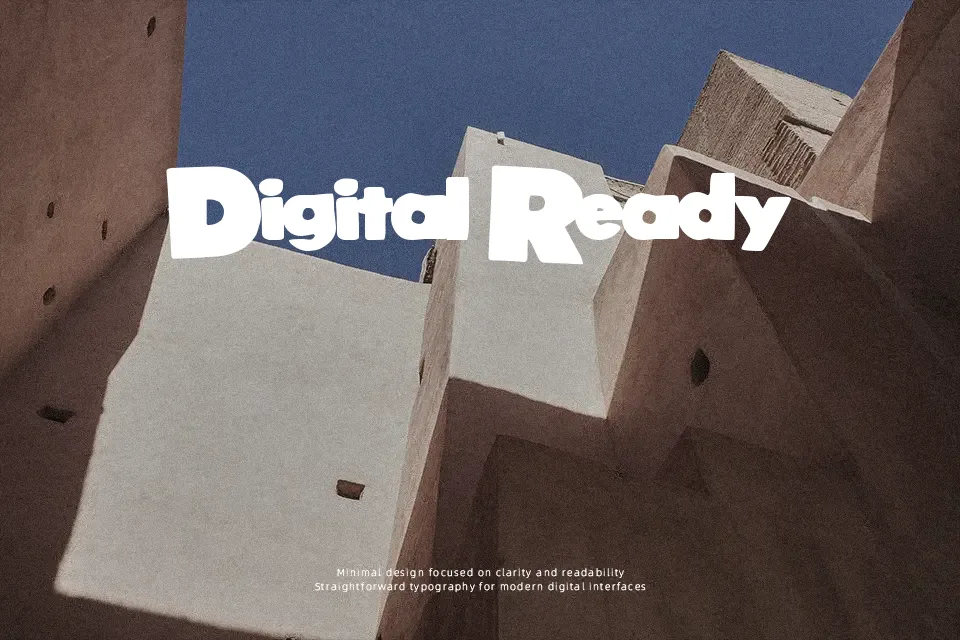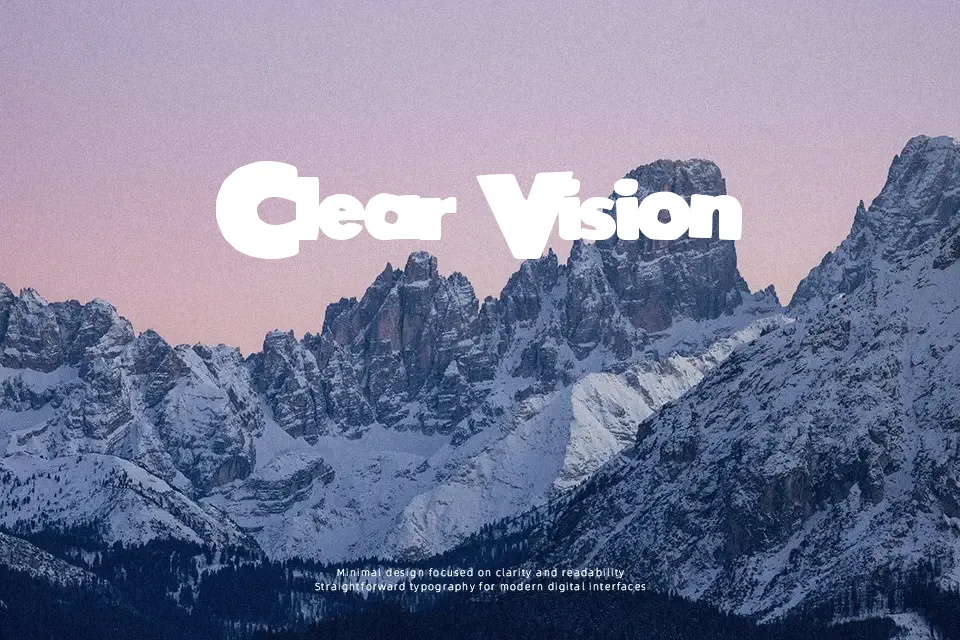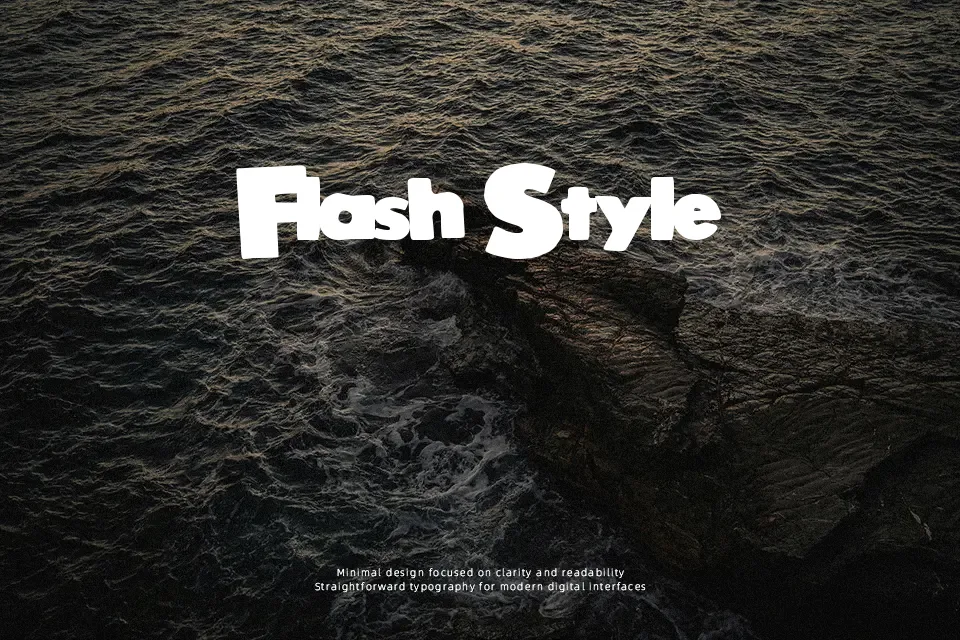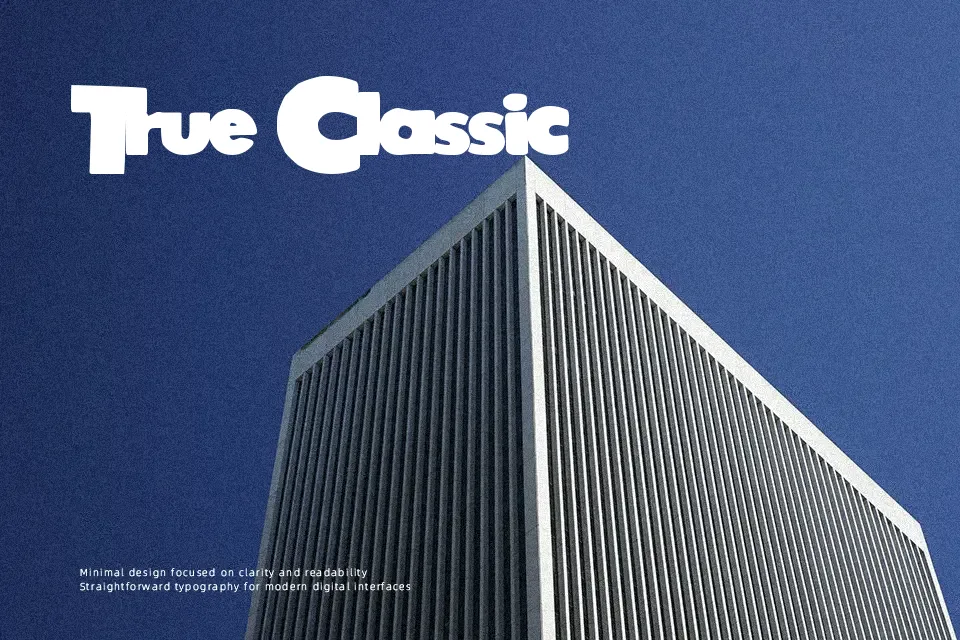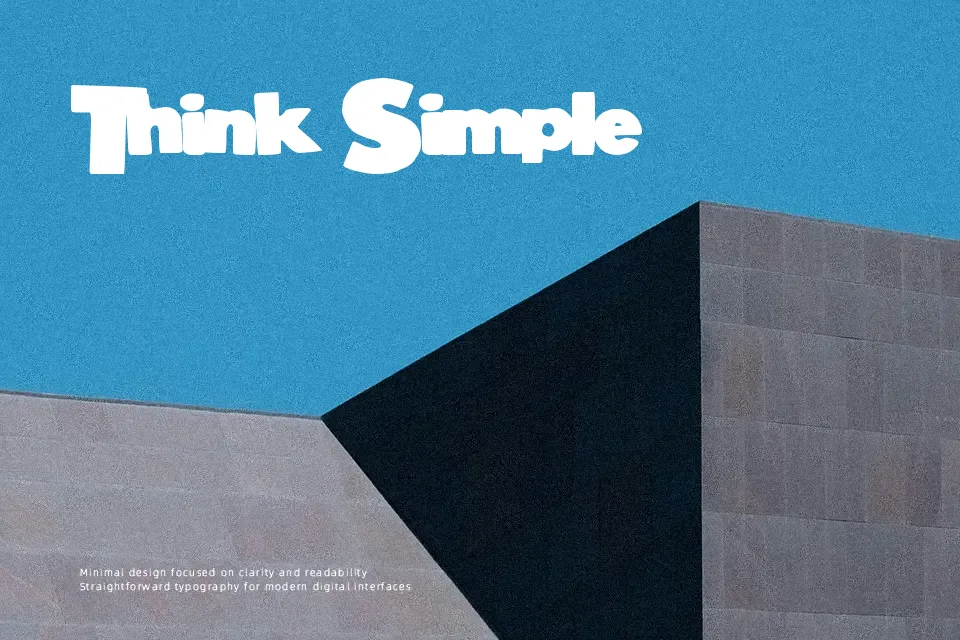
Strong Void Font
Strong Void Font delivers substantial visual weight through dense, blocky letterforms that prioritize graphic presence over delicate stroke modulation. The typeface features heavy, uniform stroke widths, squared silhouettes, and remarkably tight character spacing that together create a solid typographic wall. Proportions remain squarish across capital forms, ensuring that short headlines, gaming titles, and merchandise graphics project strong authority at prominent scale. However, the constricted counters and substantial stroke bulk significantly hinder legibility in continuous text passages. At smaller rendering sizes, inner negative spaces quickly collapse, making the design less effective for multi-line paragraphs, dense body copy, or intricate technical specifications.
Best For: gaming title screens, streetwear graphics, music festival posters, bold product packaging
Not Ideal For: continuous paragraph reading, mobile app interface text, editorial body copy, dense technical manuals
Perfect for gaming, headline, and logo, with a bold and decorative style.